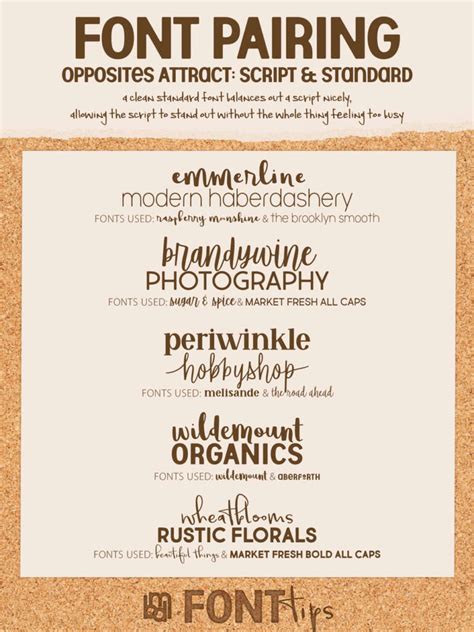
Script Font Pairing. Pacifico and raleway font is a good example of a script. Bellenia love (otf) and kaiven (ttf, woff, woff2).
Web unlimited fonts that pair well with script on envato elements 1. Web 37 perfect font pairings for your next project 01. A principle element in good graphic design comes down to font pairings. A sans font with a more casual letter design is often the best choice to pair with a script font. Inside, we explain the science of font pairings and. Bellenia love (otf) and kaiven (ttf, woff, woff2). Century gothic was originally made as a substitute font for avant garde. Web in this blog post, we’ll discuss everything you need to know about font pairing and how to do it. Web express yourself with the world's easiest design program. This graceful and thin font is great for wedding invitations and.
Century gothic was originally made as a substitute font for avant garde. Create a design in canva. A principle element in good graphic design comes down to font pairings. Inside, we explain the science of font pairings and. Century gothic & pt serif. Web unlimited fonts that pair well with script on envato elements 1. Web 37 perfect font pairings for your next project 01. Bellenia love (otf) and kaiven (ttf, woff, woff2). A sans font with a more casual letter design is often the best choice to pair with a script font. Web in this blog post, we’ll discuss everything you need to know about font pairing and how to do it. Web express yourself with the world's easiest design program.